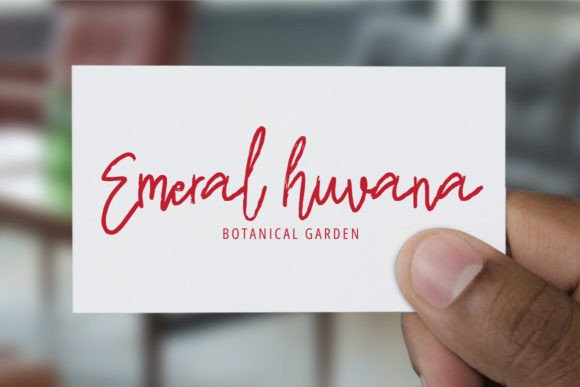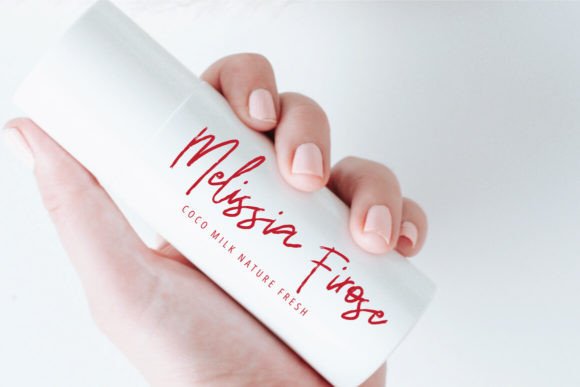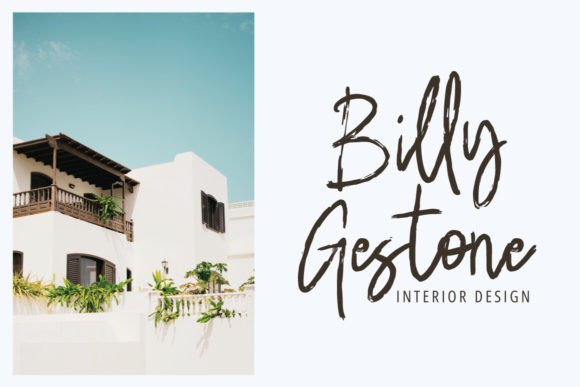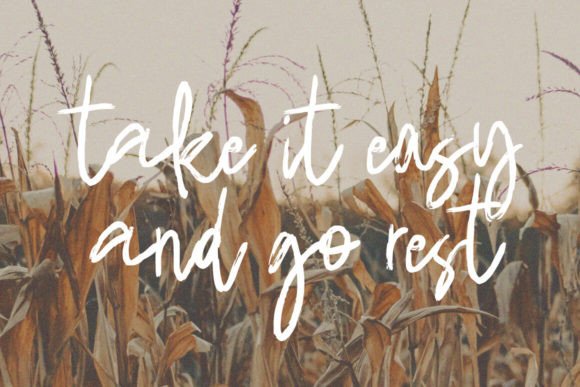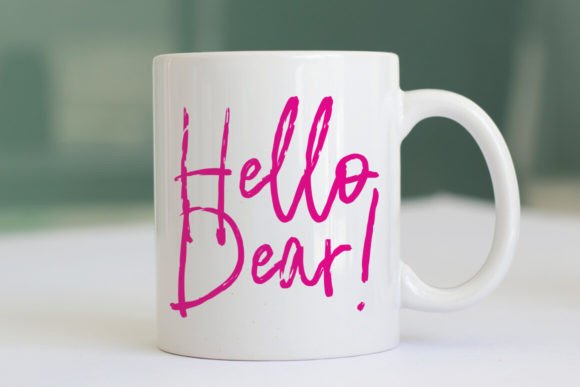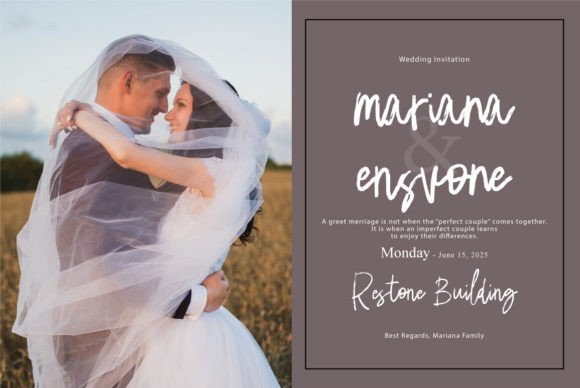
Unleash Your Creativity with Bikang Font
Have you ever been stuck in a creative rut, staring blankly at your computer screen, searching for the perfect font to elevate your design? I know I have. It’s like trying to find a needle in a haystack, until one day, you stumble upon a treasure trove of creativity.
That’s exactly what happens when you discover Bikang Font, a beautiful brush signature with a handmade calligraphy style that’s perfect for adding a touch of elegance to your designs. Whether you’re creating invitations, greeting cards, branding materials, or business cards, Bikang Font is sure to make your projects stand out. As a designer, you know how valuable it is to have a versatile font that can be used across various mediums, and Bikang Font delivers just that.
With its decorative characters and dancing baseline, Bikang Font is a game-changer for designers looking to add a personal touch to their work. In this article, we’ll dive deeper into the world of Bikang Font and explore its many uses and benefits.
Bikang Font Key Features
- Font Size and Style: The font comes in a single weight, with a size range of 8-72 points, and is available in regular and italic styles.
- Unique Characteristics: Bikang Font features a unique blend of modern and traditional design elements, with intricate details and ornaments that set it apart from other fonts.
Bikang Font Review
I recently had the chance to work with Bikang Font, and I must say it’s a unique and interesting choice. Here’s my honest take on what works well and what doesn’t.
- Exotic flair**: Bikang Font brings a touch of the exotic to any design project, making it perfect for branding or packaging that wants to stand out.
- Highly legible**: Despite its unique design, Bikang Font remains highly legible, making it suitable for body text and longer passages.
- Difficulty in pairing**: The font’s unique design makes it challenging to pair with other fonts, which could limit its use in certain design projects.
Overall, Bikang Font is a bold and eye-catching choice that’s perfect for designers who want to add some excitement to their projects. While it has some limitations, its unique design and high legibility make it a great option for branding and packaging projects.
The Bikang Font is ideal for:
- Designing modern and minimalist graphics.
- Creating eye-catching headings and titles.
- Adding a touch of elegance to your documents and presentations.
Alternatives to Bikang Font for Designers
Montserrat Font is a sans-serif font designed by Julieta Ulanovsky. It’s ideal for headings and titles due to its strong and modern feel. Montserrat Font is a great alternative to Bikang Font as it has a similar urban feel but with a more geometric and industrial aesthetic.
Comparison: While Bikang Font has a more playful and handwritten feel, Montserrat Font is more modern and clean, making it suitable for a wide range of designs.
Great Vibes Font is a script font designed by Handmade Typographie. It’s perfect for creating a friendly and approachable atmosphere in designs. Great Vibes Font is similar to Bikang Font in its playful and handwritten feel, but it’s more elegant and sophisticated.